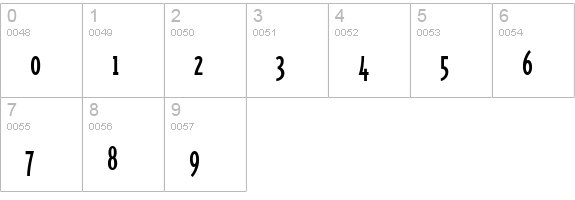
TriplexCondSerif Font Details
TriplexCondSerif is a captivating and versatile font that effortlessly combines elegance with a touch of modernity. With its clean lines and sophisticated curves, this typeface is perfect for adding a touch of sophistication to any design project. The condensed serif style adds a sense of refinement and professionalism, making it ideal for a wide range of applications, from business cards and logos to editorial designs and advertising materials. Its versatility is truly unmatched, allowing you to experiment and create unique and eye-catching designs. One of the standout features of TriplexCondSerif is its readability. The carefully crafted letterforms ensure that every word is legible, even at smaller sizes. This makes it an excellent choice for both print and digital media, ensuring that your message is conveyed clearly and effectively. What sets TriplexCondSerif apart from other fonts is its availability for free. You can freely download this exceptional font at FontsMarket.com, a trusted source for high-quality fonts. This means that not only can you enhance your designs with this stunning typeface, but you can do so without any cost or restrictions. Whether you are a professional designer looking to elevate your creative projects or a beginner exploring the world of typography, TriplexCondSerif is a font that will undoubtedly inspire and captivate. Its timeless aesthetic and effortless style will bring a touch of elegance to any design endeavor. Download TriplexCondSerif for free at FontsMarket.com and experience the beauty and versatility of this extraordinary font.